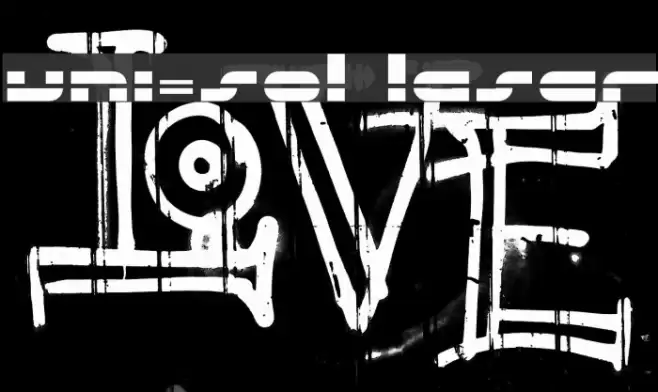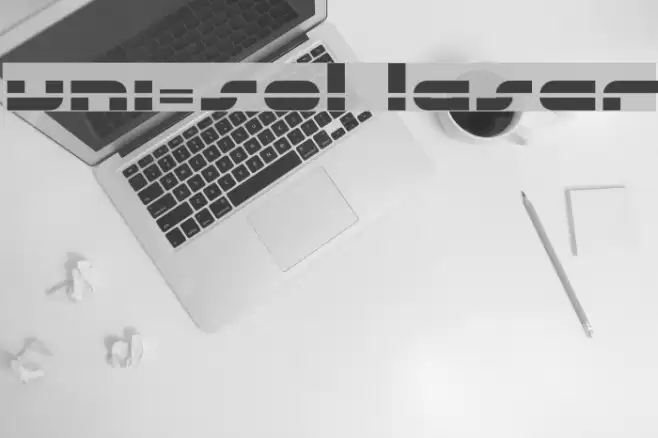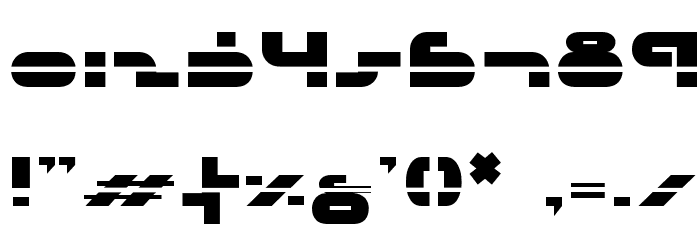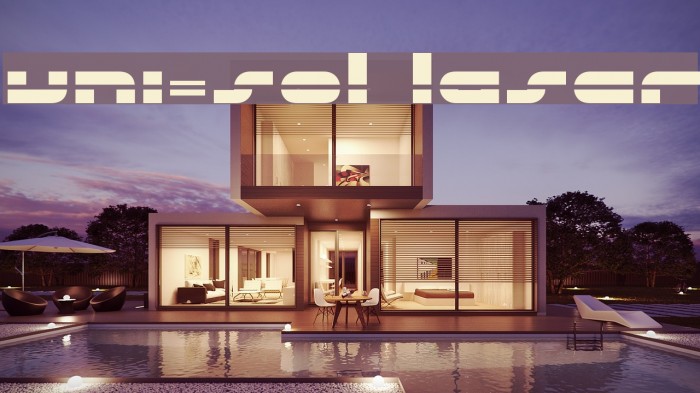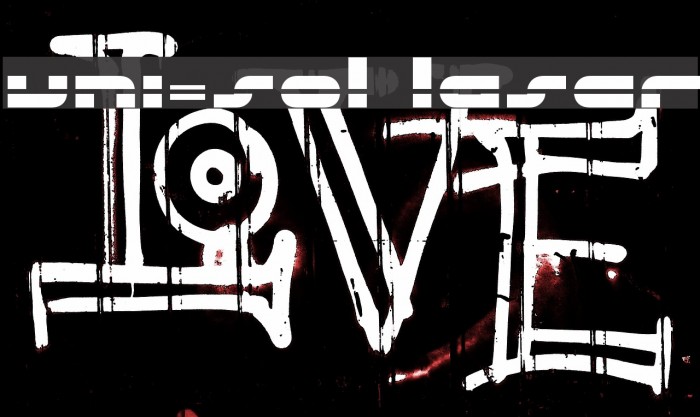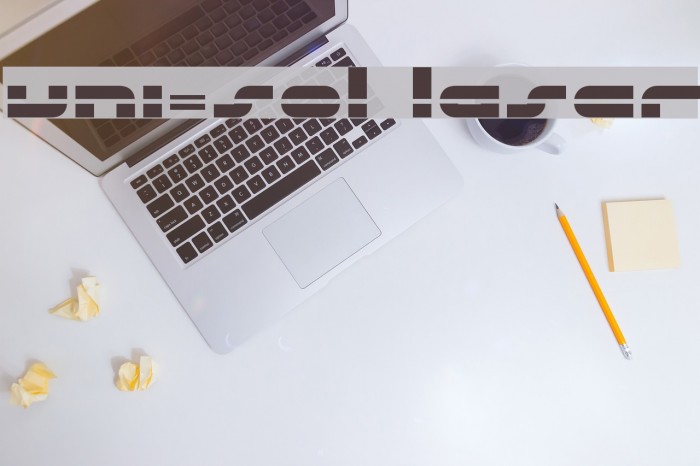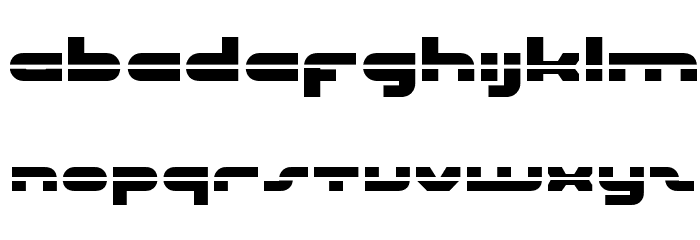
uni-sol laser Font
uni-sol laser Description
This font features a futuristic and geometric design with bold, block-like characters. Each letter is composed of thick, solid lines with a distinct, segmented appearance, giving it a mechanical and digital feel. The characters are uniform in height, with consistent spacing that enhances readability while maintaining a unique aesthetic. The font is striking and modern, making it ideal for projects that require a strong visual impact. Its design is reminiscent of digital displays or sci-fi themes, with a focus on angular shapes and minimal curves.
A futuristic, geometric font with bold, segmented characters from Uncategorized fonts.
- Proposed Projects: Ideal for sci-fi themed designs, digital displays, video game interfaces, and technology branding.